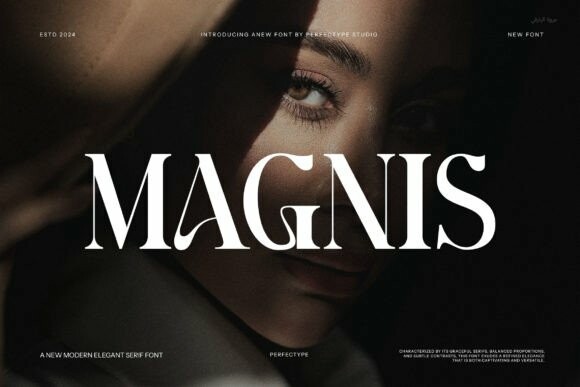
Magnis Font
Designer: Perfectype
Magnis Font is a unique serif font with stylish, elegant letter shapes. It combines classic charm with a modern twist, making it perfect for both formal and creative projects.